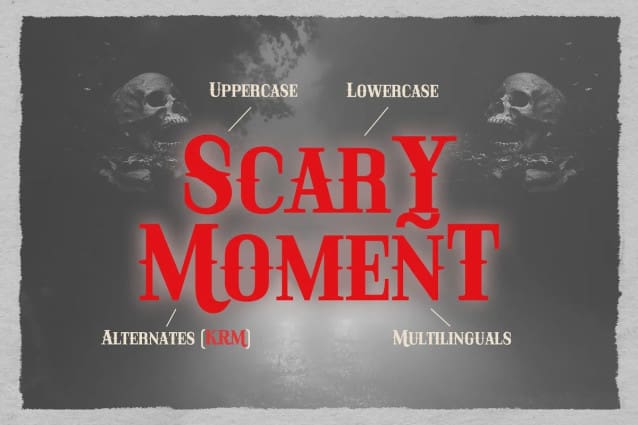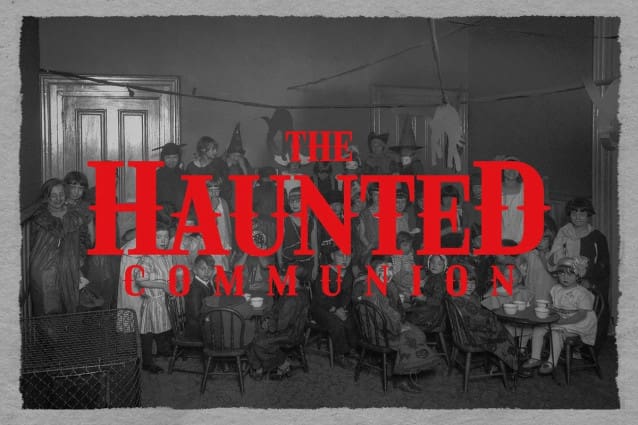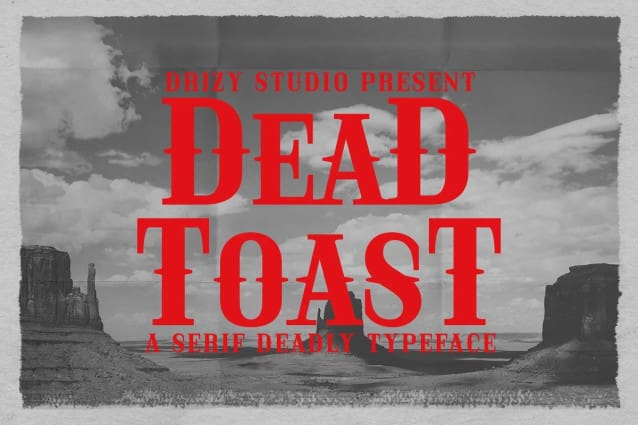
Deadtoast Font
Deadtoast Font a deadly Halloween font from Drizy! It’s suitable for scary Halloween theme of your project. Deadtoast Features: Uppercase & Lower Case Numeral & Punctuation Multilinguals Alternates